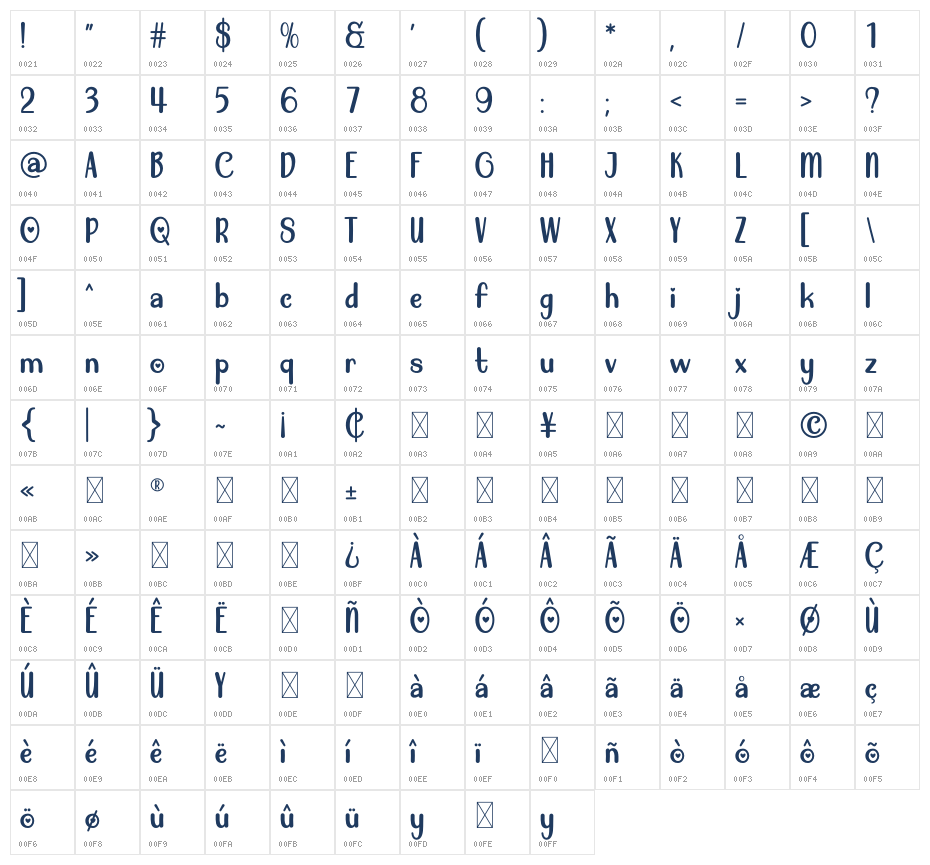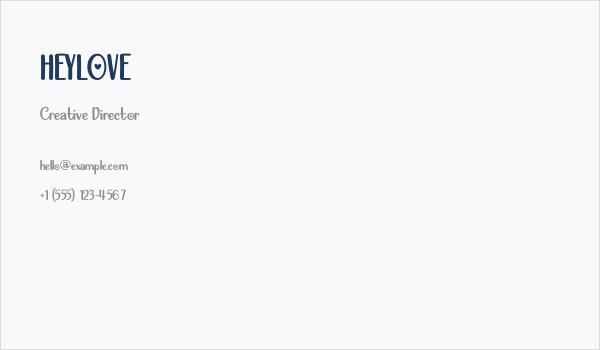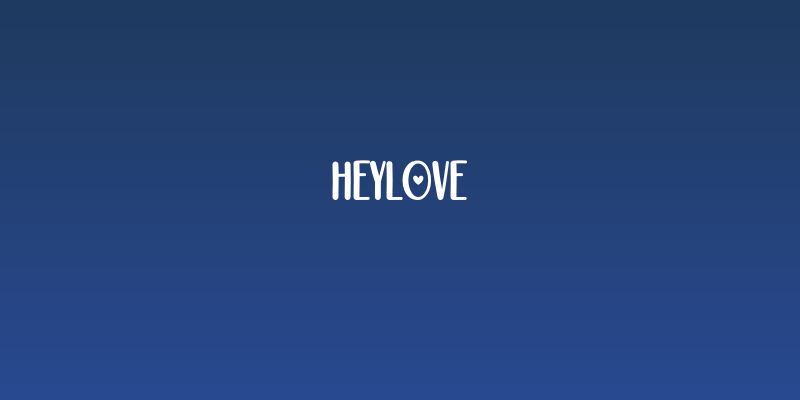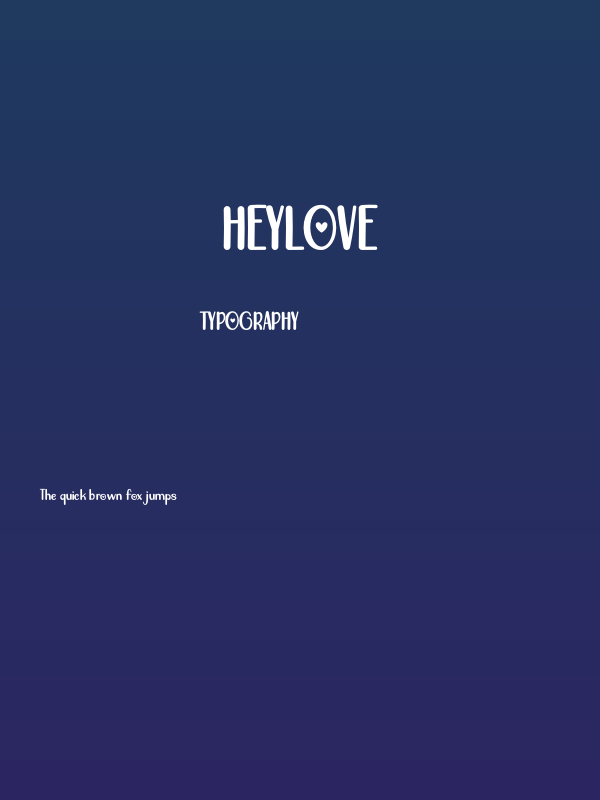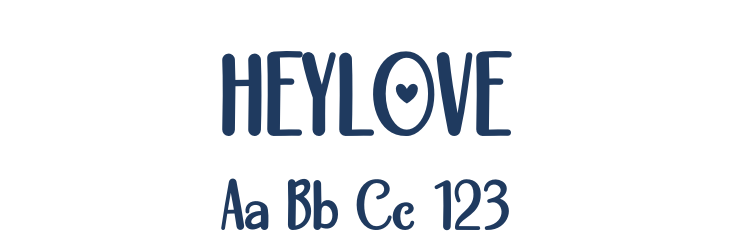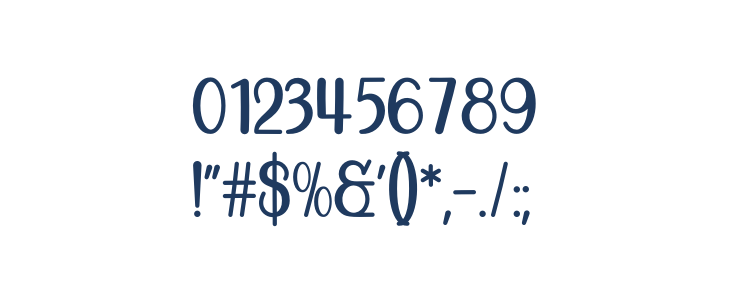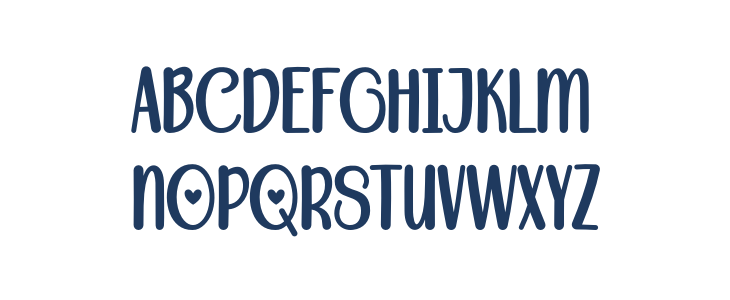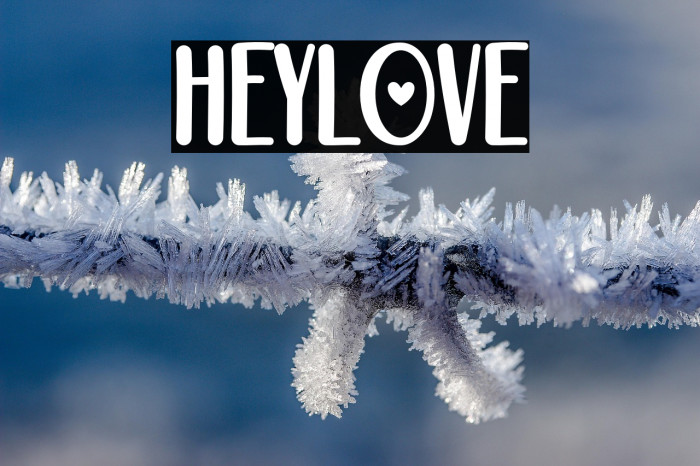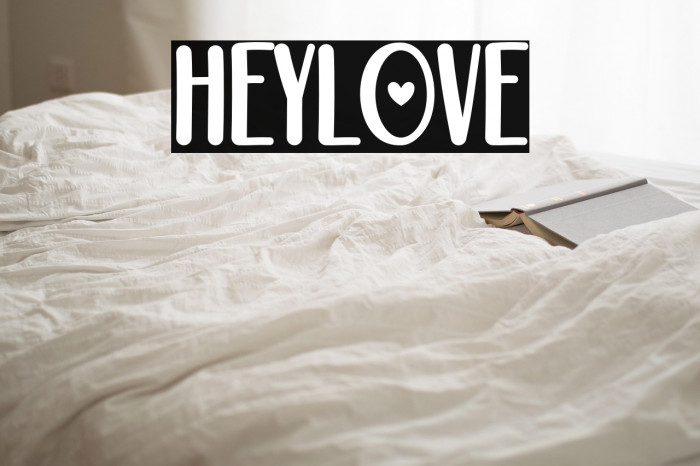
HEYLOVE Font
HEYLOVE Description
A playful, rounded, handwritten style font with a casual and friendly appearance, featuring slightly irregular shapes and a smooth flow.
| Overall Style | Casual, Playful, Friendly |
| Use Case | Children's books, casual branding, greeting cards, invitations, playful posters. |